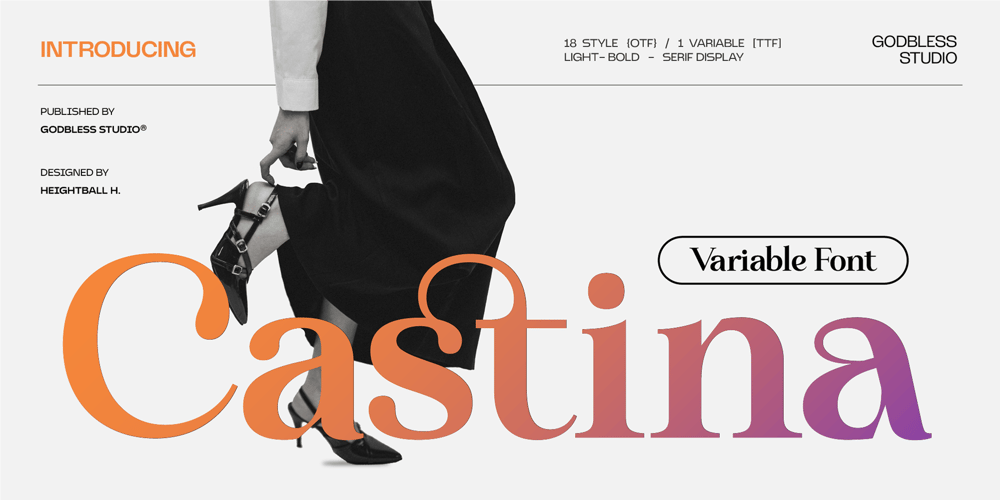
Castina serif Display
Castina serif Display font
Castina serif Display Font Family was designed by Heri Juniawan and published by Godbless Studio. Castina serif Display contains 10 styles and family package options. Introducing Castina, a sophisticated serif display font family designed to bring an air of elegance, style, and tranquility to your projects. With a range of five variable weights from Light to Bold, Castina adapts gracefully to any creative application, from editorial layouts to branding, advertising, and print media. Its versatile nature makes it perfect for magazine headlines, luxury packaging, posters, and web design, offering a refined yet approachable aesthetic. Whether you’re aiming for a timeless appeal or a contemporary touch, Castina delivers just the right balance of charm and readability, making it an essential choice for designers and publishers alike.Why Choose Dignity Grotesk? Distinctive Character: Castina features a refined and stylish design with smooth lines and dynamic shapes. Its modern yet timeless appearance makes it ideal for creating memorable and professional visual identities. Versatile Application: Whether you’re working on branding, logo creation, magazine layouts, posters, book covers, or sublimation projects, Castina adapts seamlessly to all these contexts. Its flexibility ensures it fits perfectly into any design scheme. Wide Compatibility: Castina is fully compatible with leading design software including Adobe Photoshop, Adobe Illustrator, CorelDRAW, and more. Integrate it effortlessly into your workflow and watch your creativity come to life. User-Friendly Design: Designed for ease of use, Castina offers various styles and weights, allowing you to select the perfect option for every project. Its intuitive design process enhances your overall experience. Enhance Your Designs: With Castina, every project exudes professionalism and elegance. This font is designed to strengthen your visual message and deliver impressive results. Don’t Miss Out on Elevating Your Design Projects with Castina! Acquire this font today and transform your creative vision into stunning reality. With Castina, sophistication and versatility are at your fingertips, ready to bring your designs to the next level.Get Castina now and experience the art of exceptional design!